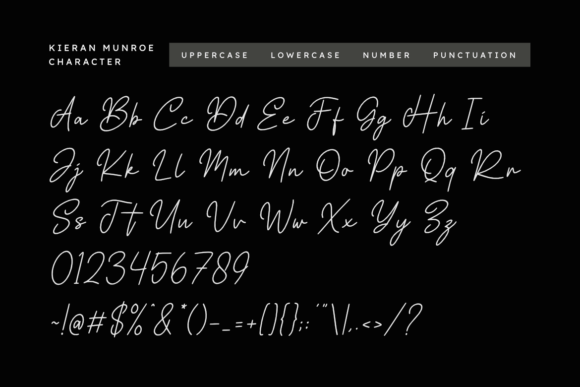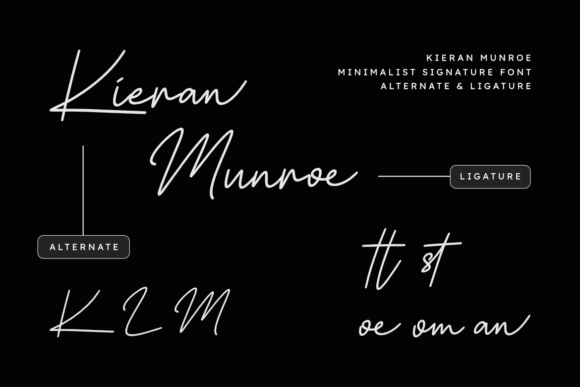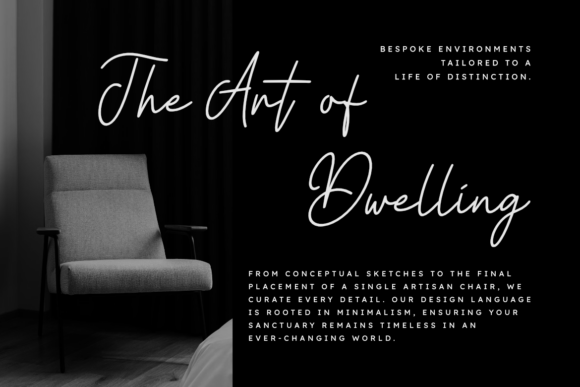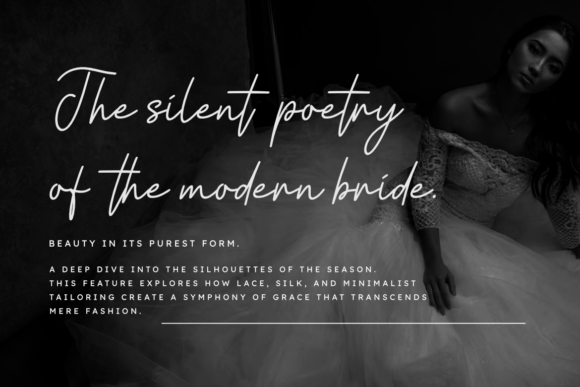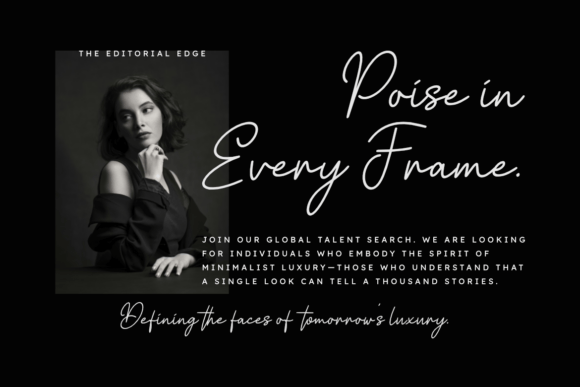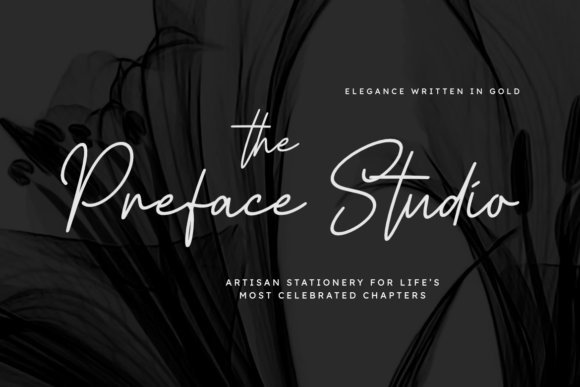
Introduction to Kieran Munroe Font
Have you ever stared at a blank page, trying to find the perfect font to match the mood of your creative project? For designers, this moment of uncertainty can be daunting, especially when the stakes are high. But what if you had a reliable design resource that could elevate your work and make it stand out from the crowd?
Enter the Kieran Munroe Font, a stunning and elegant minimalist signature font that’s perfect for impactful and intimate typography. With its refined structure and natural monoline flow, this font is a game-changer for designers looking to add a touch of sophistication and heart to their work.
Whether you’re working on a luxury logo, a photography watermark, or a modern lifestyle design, the Kieran Munroe Font is an invaluable addition to your design arsenal.
Key Features of Kieran Munroe Font
- Unique, Hand-Drawn Design: The Kieran Munroe Font is a high-quality, hand-drawn design resource ideal for creative projects requiring a personal touch.
- Perfect for Creative Projects: With its unique, hand-drawn design, the Kieran Munroe Font is perfect for creative projects such as invitations, posters, and social media graphics.
Honest Review: Kieran Munroe Font
I recently stumbled upon the Kieran Munroe Font while searching for a design resource to enhance my creative project. At first glance, I was impressed by its high-quality design and unique aesthetic.
- ✨ The font’s versatility makes it suitable for a wide range of creative projects, from logos to brochures.
- ⚠️ The font’s character set is limited, making it less suitable for projects that require a large number of characters.
- ⚠️ The font’s kerning can be inconsistent in certain situations, which may affect the overall readability.
Overall, I’m impressed by the Kieran Munroe Font’s potential, but it’s essential to weigh its limitations before deciding to use it for your creative project.
Kieran Munroe Font
The Kieran Munroe Font is a high-quality design resource ideal for creative projects. This font offers a unique and stylish look that can elevate your designs to the next level.
Tips for Getting the Most Out of Kieran Munroe Font
To get the most out of the Kieran Munroe Font, experiment with different font sizes, colors, and combinations. You can also pair it with other design elements, such as icons and graphics, to create unique and eye-catching designs.
The Kieran Munroe Font is ideal for a variety of creative projects, including graphic design, typography, and digital art. You can use it to create posters, flyers, business cards, and other marketing materials, as well as social media graphics and presentations.